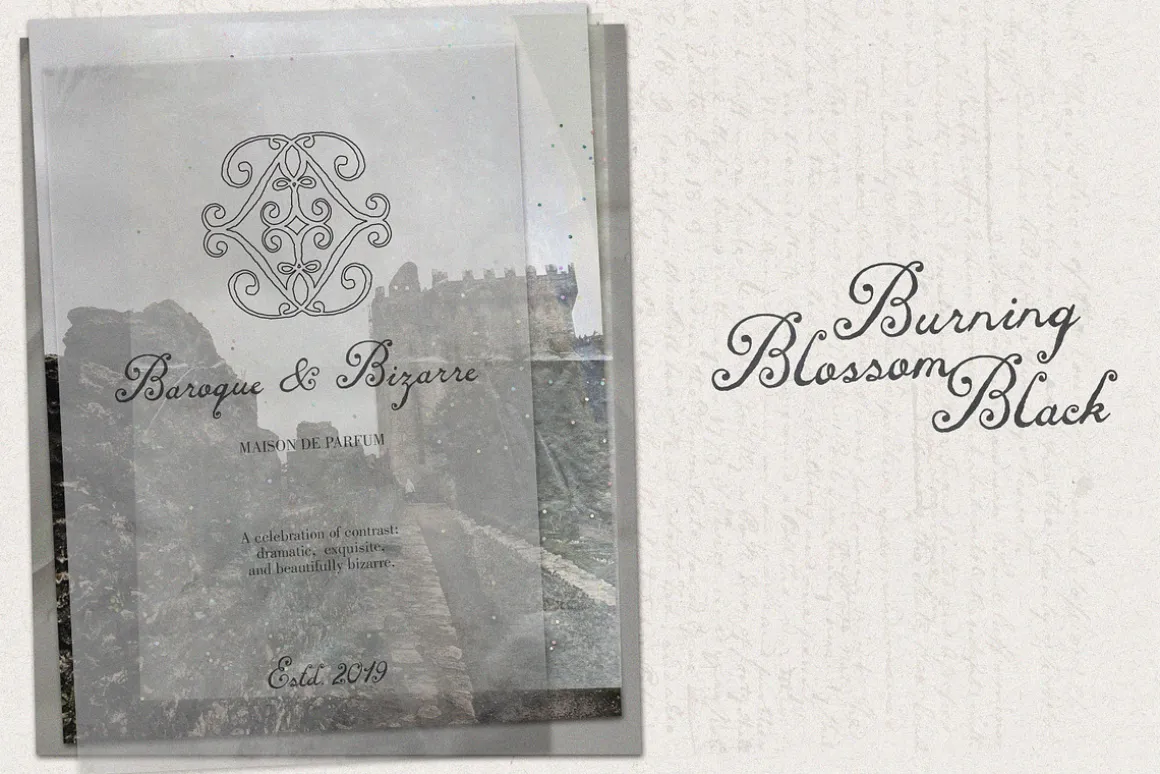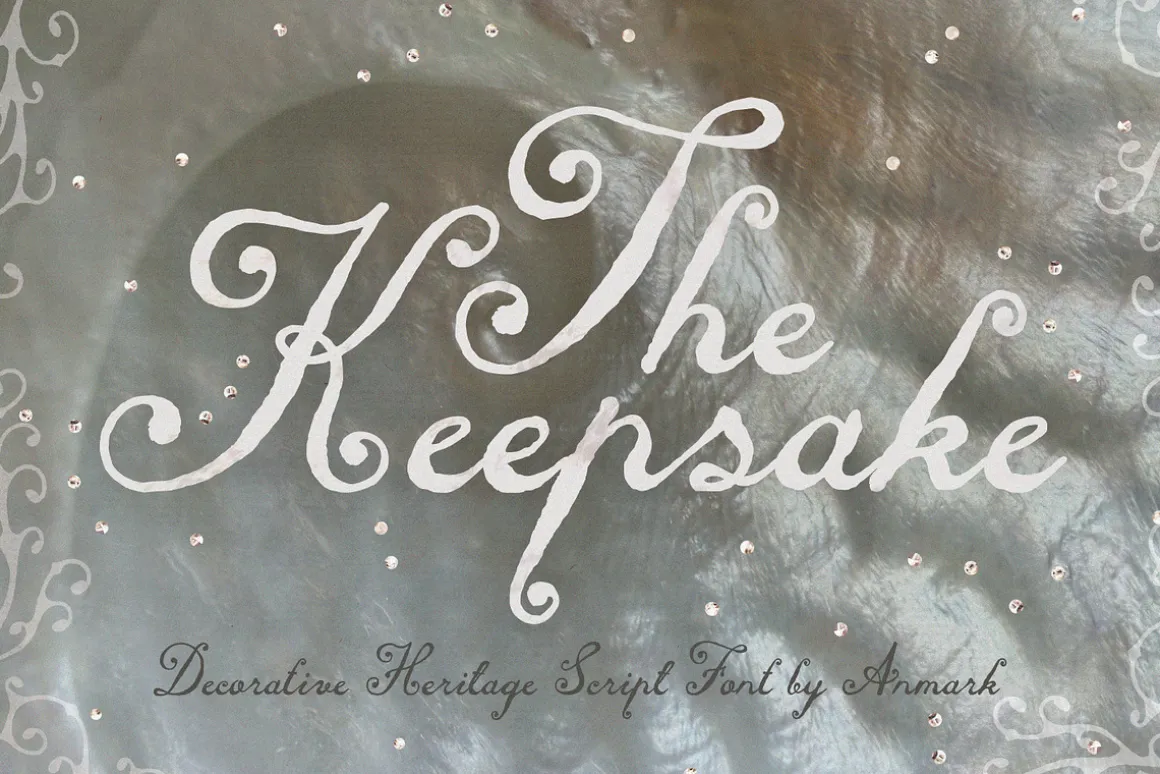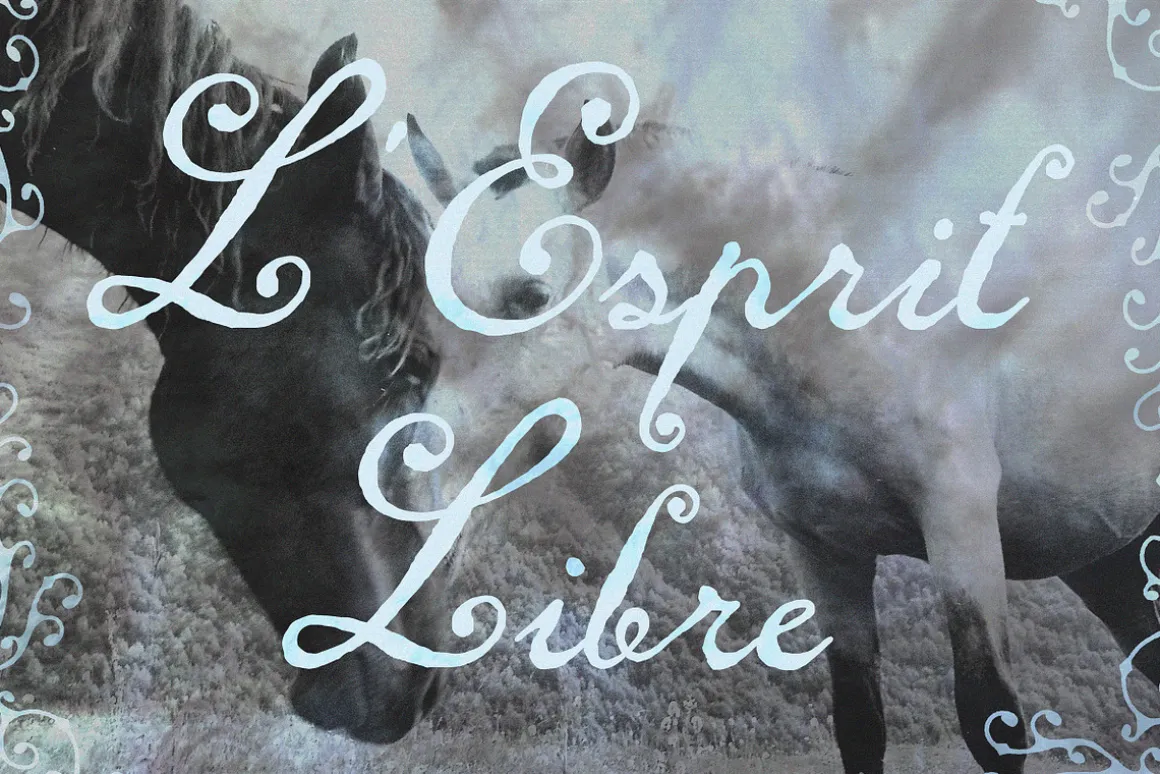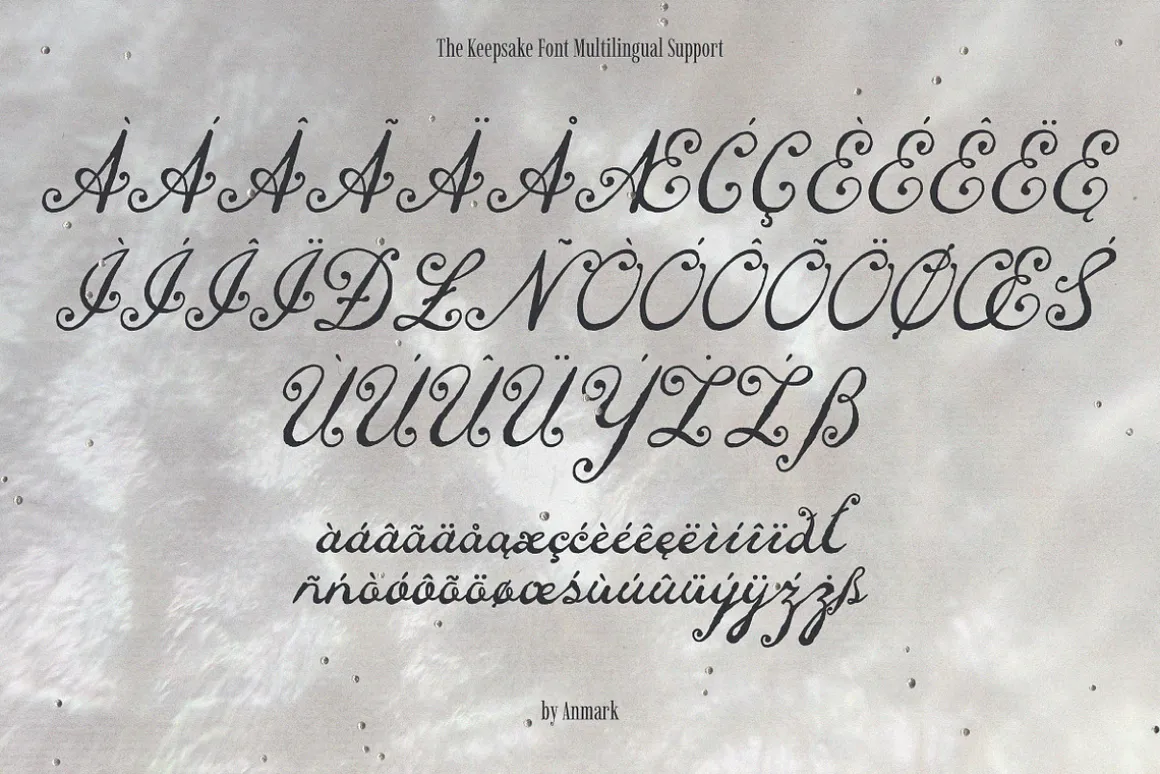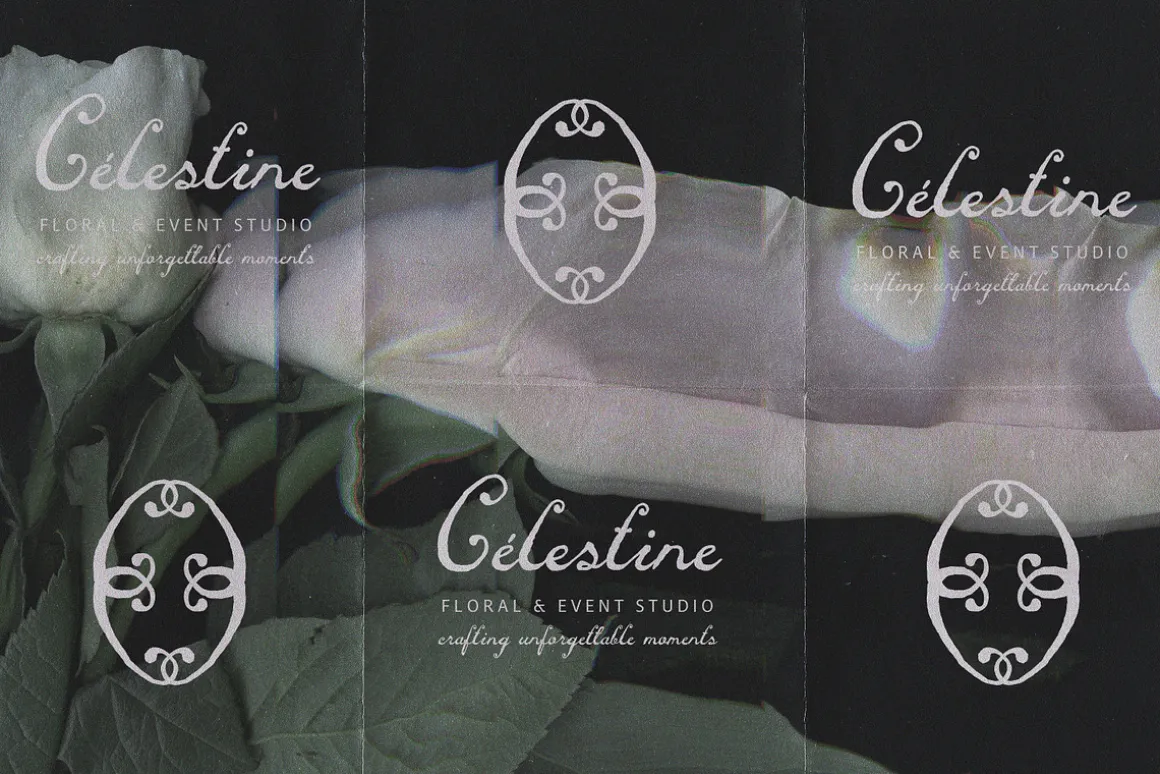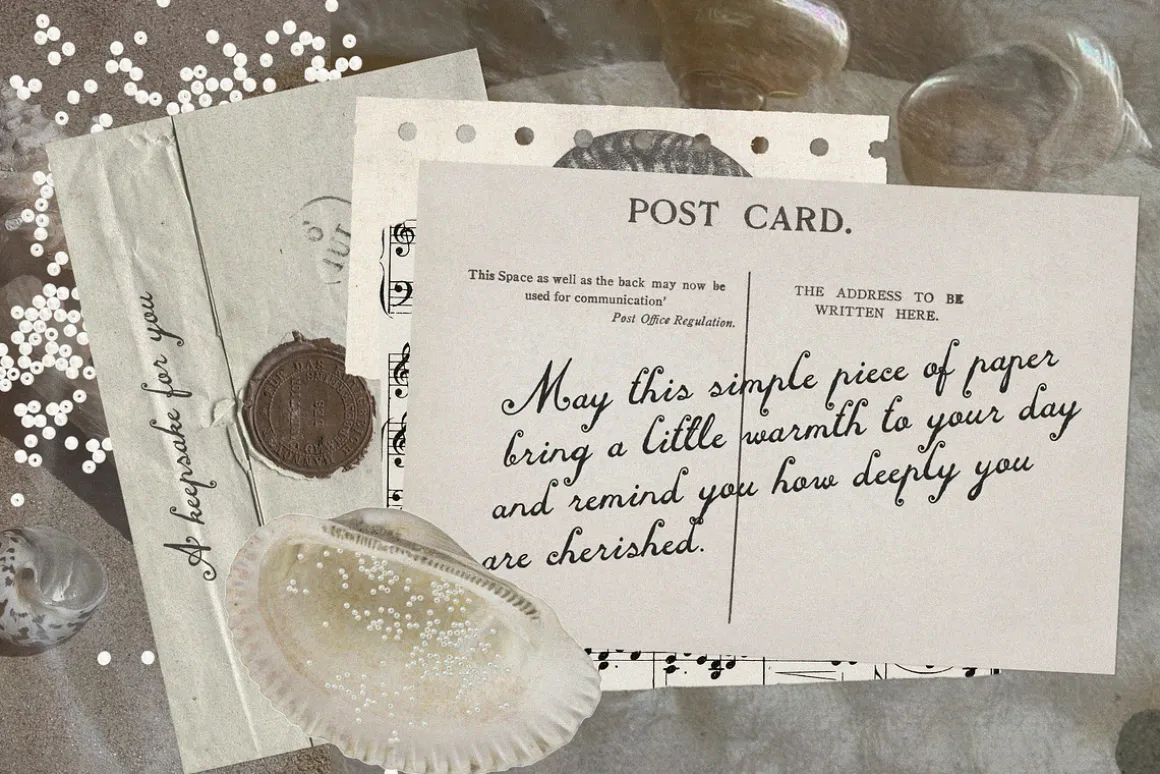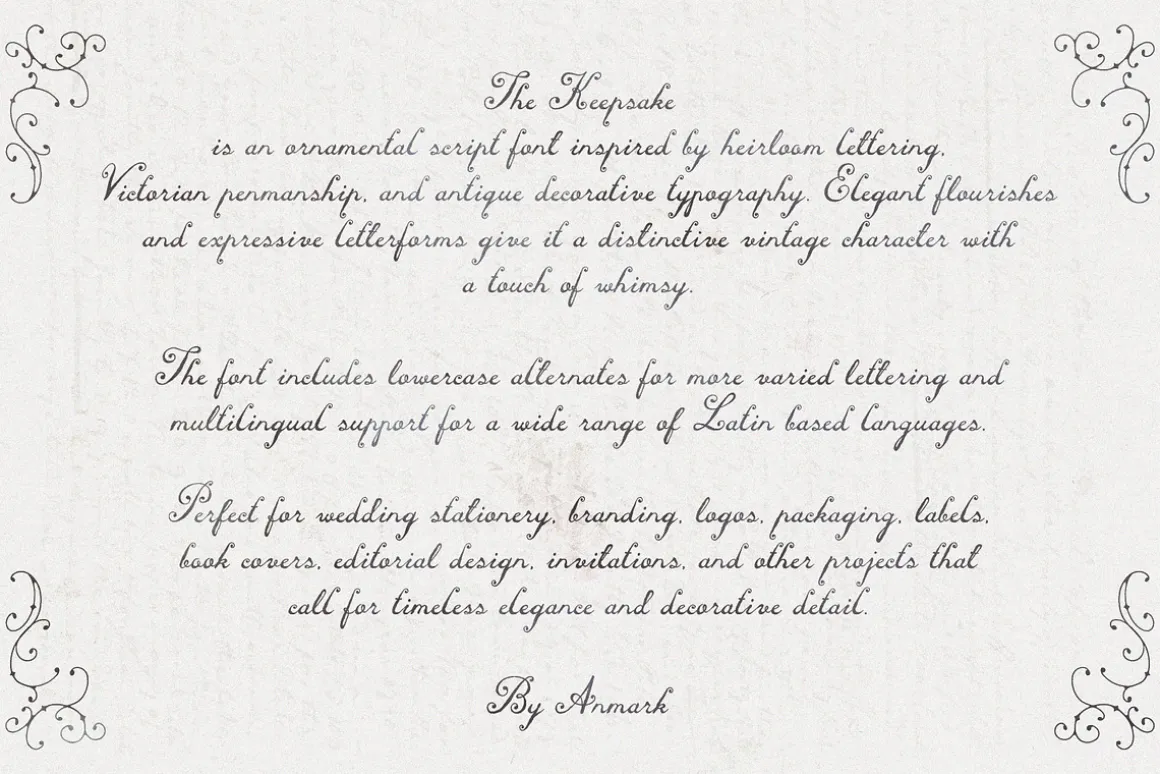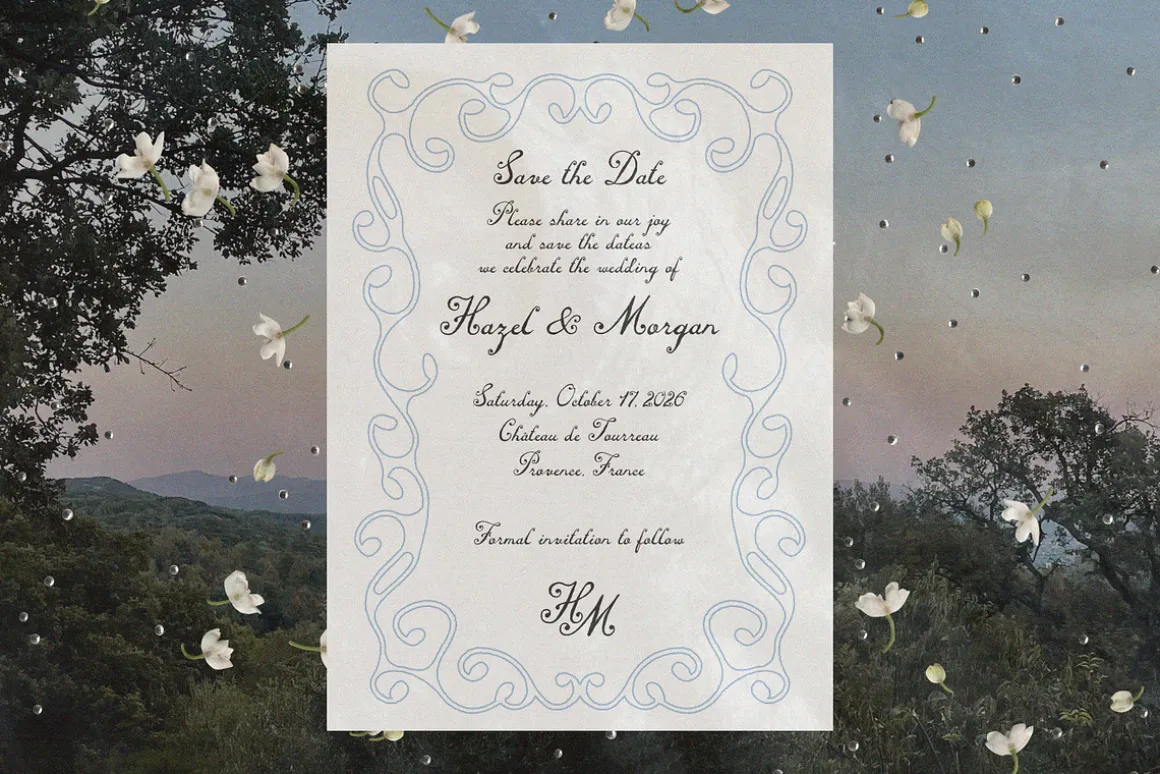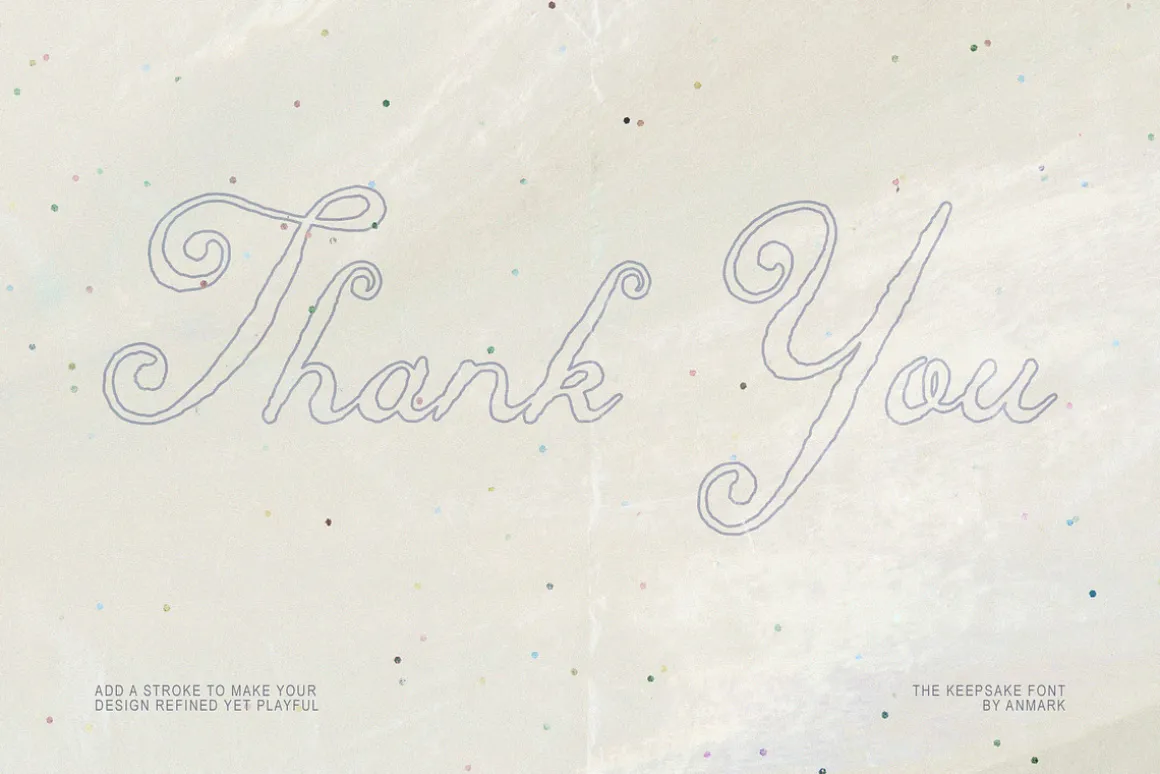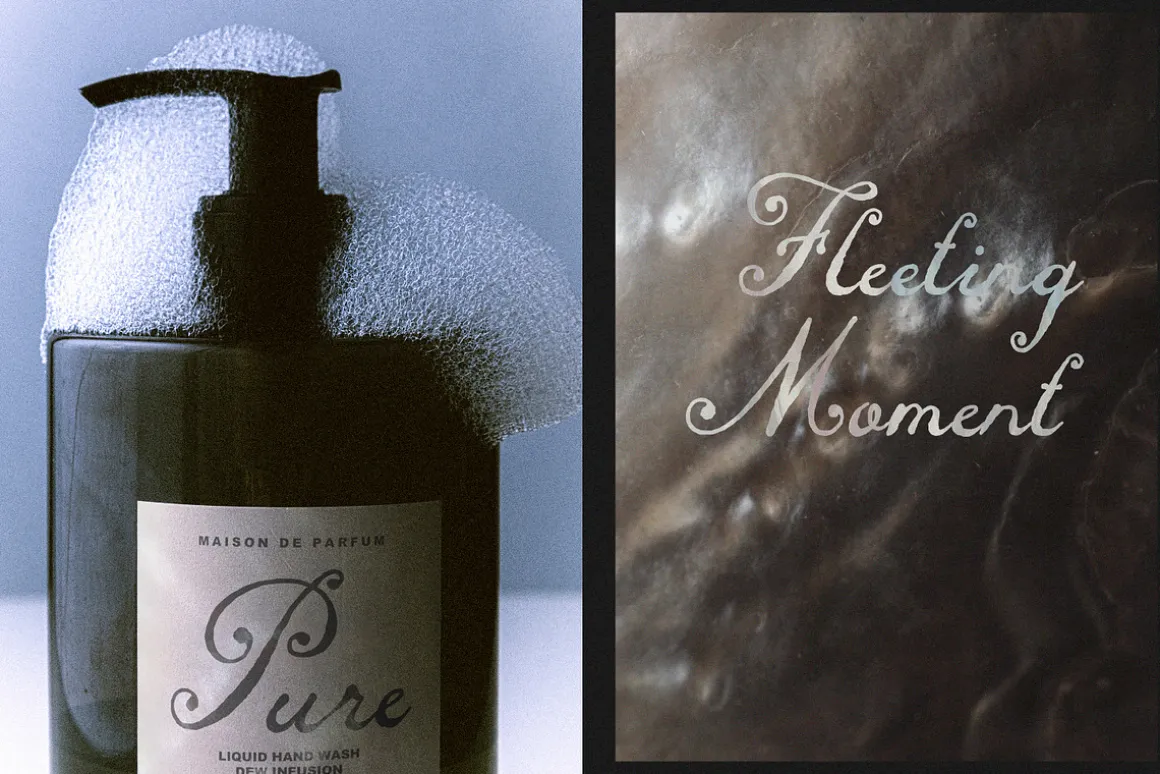
Introducing The Keepsake, an ornamental vintage script font with romantic curves, whimsical flourishes, and a lightly textured finish. Inspired by heirloom keepsakes, antique storybooks, and decorative lettering, it brings warmth, character, and charm to every design.
The Keepsake combines expressive letterforms with graceful details, creating a look that feels nostalgic, elegant, and full of personality. The subtle texture adds a handcrafted touch while preserving excellent readability.
Uppercase and lowercase letters
Numbers and punctuation
Lowercase alternates
Multilingual support
Perfect for wedding invitations, save the dates, branding, logos, packaging, labels, book covers, editorial layouts, greeting cards, stationery, social media graphics, boutique products, and vintage inspired design projects.
Designed for projects that benefit from decorative detail and a distinctive vintage character.